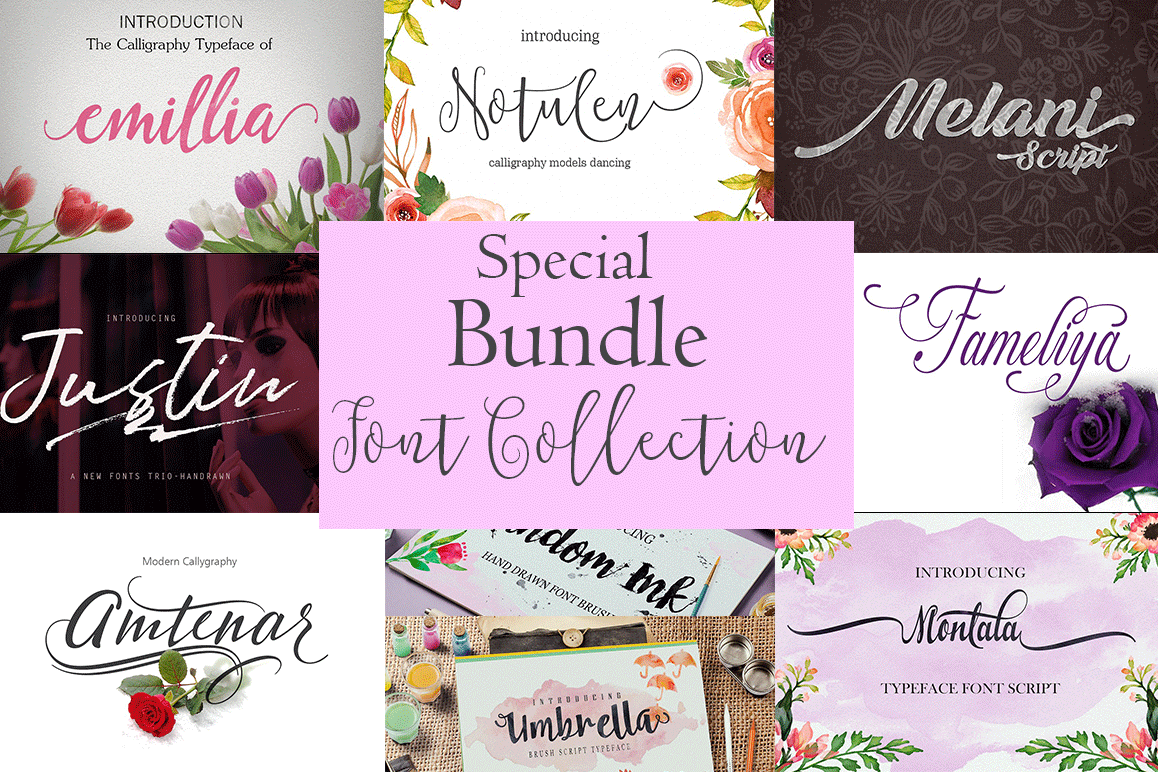
Special Bundle-Font Collection
Fonts Collection, including scripts, displays, brushes, handwritten and serifs, there are also wizard ornaments and swashes. Only with $ 4.  with hundreds of glyphs, including alternatives, ligatures, swash, separate swash, contextual alternatives and international language support. which can be accessed using OpenType smart programs such as Adobe Illustrator, Adobe InDesign, CorelDraw X6-X7, Microsoft Word 2010 or later.Can be used for various purposes.such as headings, logos, wedding invitation, t-shirt, letterhead, signage, lable, news, posters, badges etc.Commercial Use Allowed and Create Unlimited End Products For Sale.